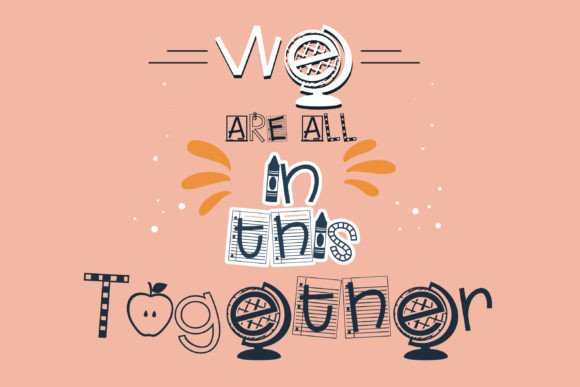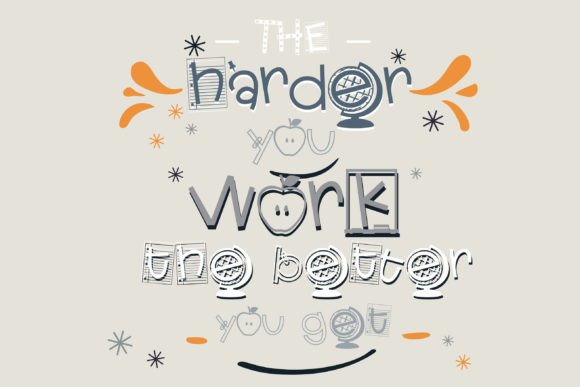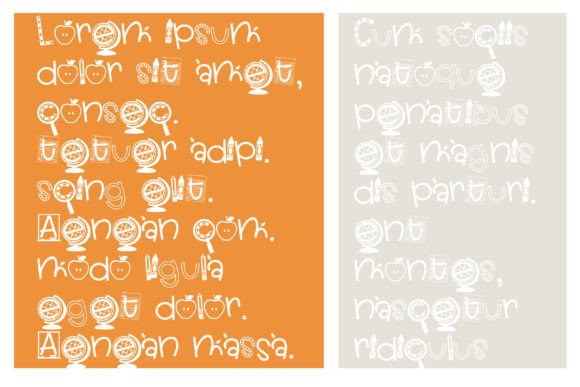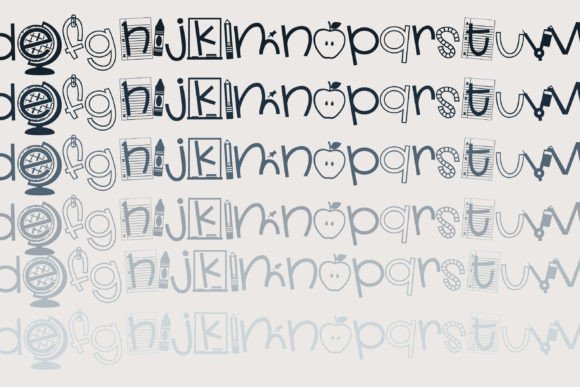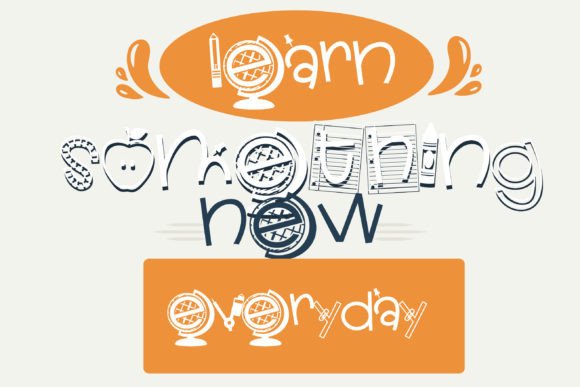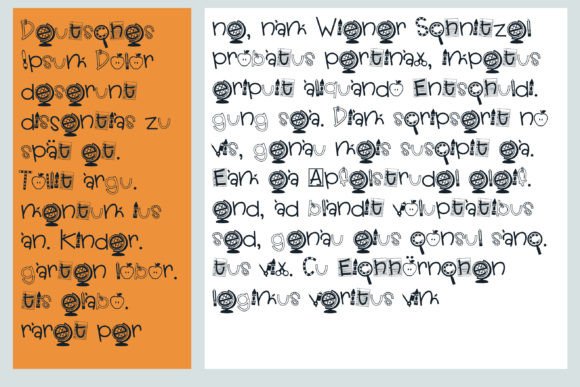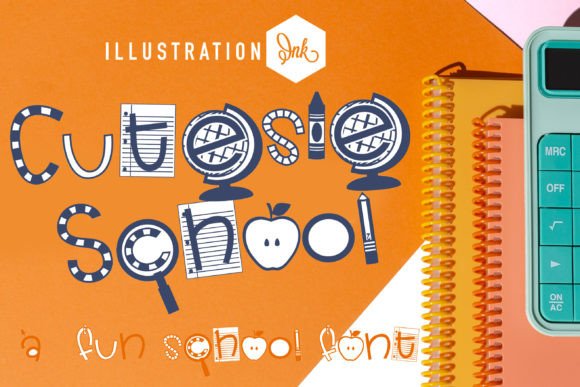
Cutesie School Font: Adding a Touch of Whimsy to Your Designs
In the world of design, typography plays a crucial role in conveying the tone and personality of a project. When it comes to creating educational materials, classroom posters, or school-themed projects, the right font can make all the difference. That’s where Cutesie School font comes in – a charming and playful typeface that takes learning to a delightful level.
What Makes Cutesie School Font So Special?
Cutesie School font is a unique and imaginative typeface that features whimsical letters adorned with adorable school supplies. This font is designed to add a touch of nostalgia and creativity to your designs, making it perfect for projects that require a playful and engaging approach. Whether you’re a designer, teacher, or crafter, Cutesie School font is sure to bring a smile to your text with its clever and endearing character substitutions.
Key Features of Cutesie School Font
- Whimsical Letters: Cutesie School font features letters that are designed to resemble school supplies, such as pencils, books, and rulers.
- Character Substitutions: The font includes clever and endearing character substitutions that add a touch of personality to your text.
- Playful and Engaging: Cutesie School font is perfect for projects that require a playful and engaging approach, such as educational materials, classroom posters, and school-themed projects.
- Nostalgic Feel: The font has a nostalgic feel that is sure to evoke memories of childhood and learning.
Uses for Cutesie School Font
Cutesie School font is versatile and can be used for a variety of projects, including:
- Educational Materials: Create engaging and interactive educational materials, such as worksheets, activity sheets, and educational posters.
- Classroom Posters: Design eye-catching classroom posters that showcase important information, such as classroom rules, schedules, and inspirational quotes.
- School-Themed Projects: Use Cutesie School font to create school-themed projects, such as flyers, brochures, and newsletters.
- Crafting and Scrapbooking: Add a touch of whimsy to your crafting and scrapbooking projects with Cutesie School font.
Tips for Using Cutesie School Font
Here are some tips for using Cutesie School font effectively:
- Use it for Headings: Cutesie School font is perfect for headings and titles, as it adds a touch of personality and whimsy to your text.
- Mix it with Other Fonts: Combine Cutesie School font with other fonts to create a unique and visually appealing design.
- Keep it Simple: Don’t overdo it – keep your design simple and easy to read to ensure that your message gets across.
Cutesie School font is a charming and playful typeface that is sure to add a touch of whimsy to your designs. With its whimsical letters, clever character substitutions, and nostalgic feel, this font is perfect for projects that require a playful and engaging approach. Whether you’re a designer, teacher, or crafter, Cutesie School font is a great addition to your font collection. So why not give it a try and see how it can bring a smile to your text?
Get Creative with Cutesie School Font!
Ready to get creative with Cutesie School font? Here are some ideas to get you started:
- Create a Classroom Poster: Design a classroom poster that showcases important information, such as classroom rules or schedules.
- Make a School-Themed Craft: Use Cutesie School font to create a school-themed craft, such as a pencil case or a book cover.
- Design an Educational Worksheet: Create an educational worksheet that features Cutesie School font and fun illustrations.